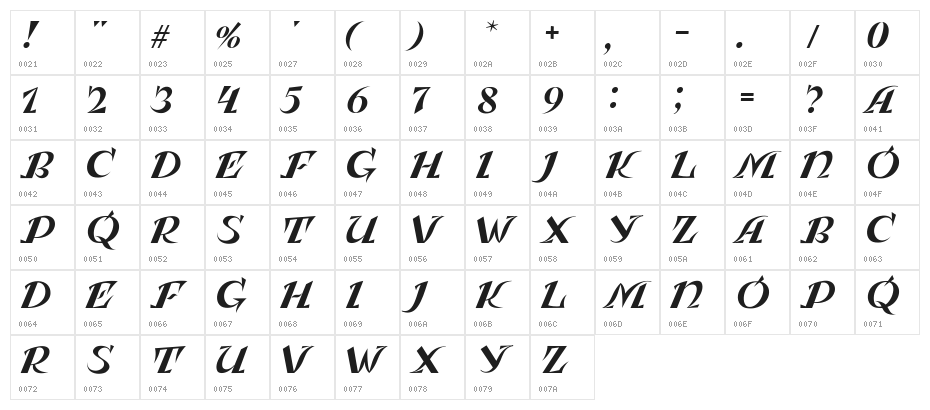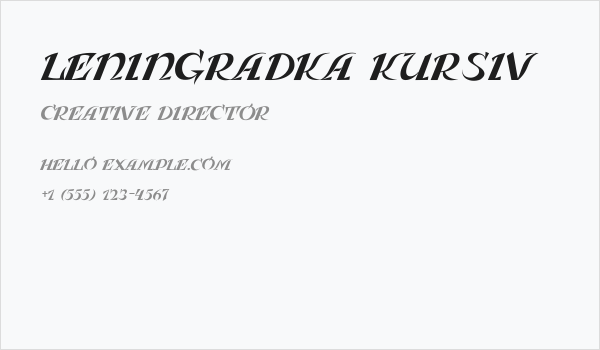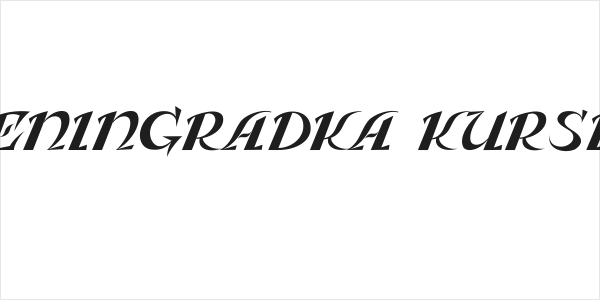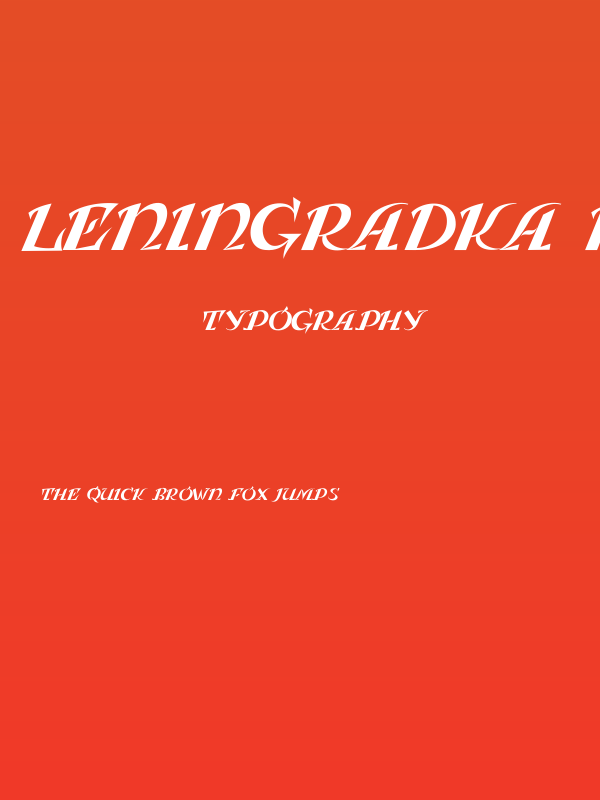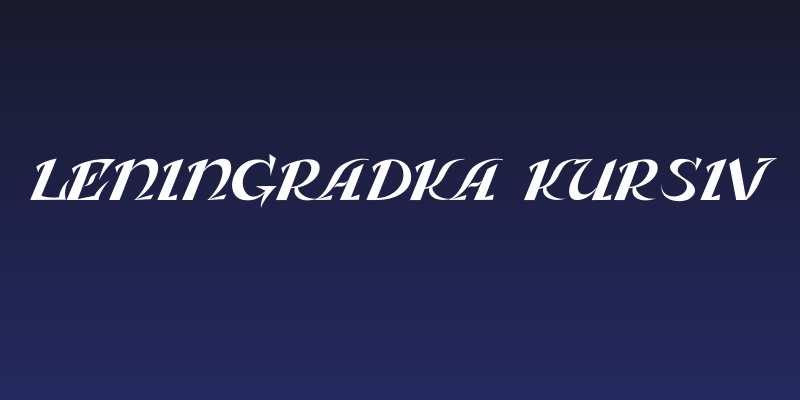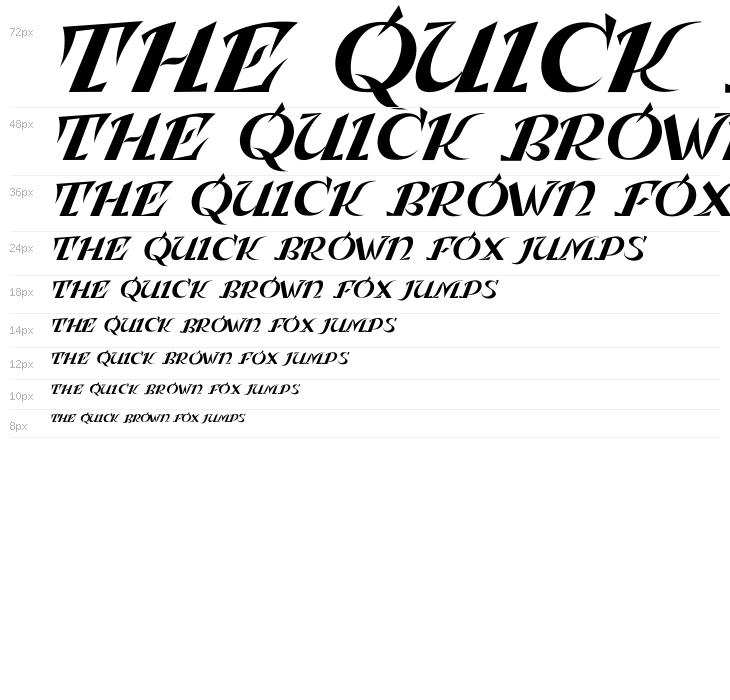
Leningradka Kursiv Font
Leningradka Kursiv Description
This font features a dynamic and elegant cursive style with a distinct slant, giving it a sense of movement and fluidity. The characters are bold and expressive, with sharp, angular serifs that add a touch of sophistication. The uppercase letters are particularly striking, with sweeping curves and pointed terminals. The lowercase letters maintain the same level of elegance, with a consistent slant and smooth transitions between strokes. The numerals are equally bold, maintaining the font's overall aesthetic. Special characters are designed with the same attention to detail, ensuring a cohesive look across all glyphs. This font is perfect for projects that require a touch of elegance and flair.
| Proposed Projects | Ideal for wedding invitations, luxury branding, editorial design, and elegant signage. |